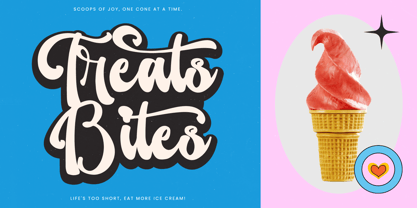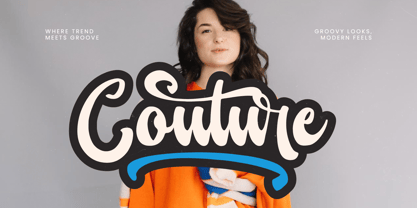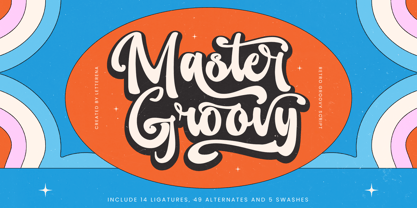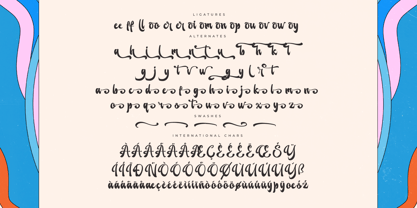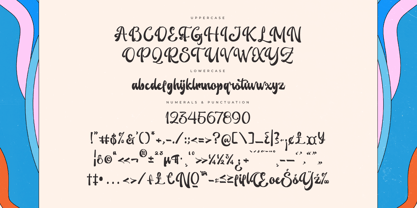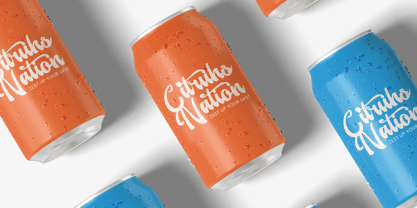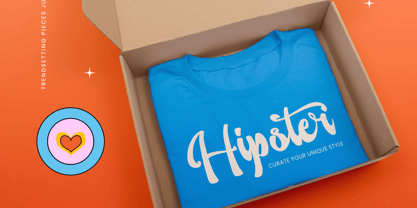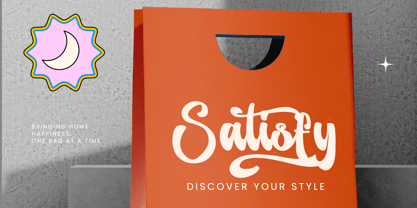
Master Groovy
von Letterena Studios
Die Schriftfamilie Master Groovy wurde von Heru Utama Putra entworfen und von Letterena Studios veröffentlicht. Master Groovy enthält 2 Stile und Familienpaketoptionen.
Master Groovy – Retro Goovy Script , from Letterena, is a Luxury Script font, suitable for any projects such as: logos, branding projects, homeware designs, product packaging, mugs, quotes, posters, shopping bags, t-shirts, book covers, name card, invitation cards, greeting cards, label, photography, watermark, special events, and all your other luxury and beautiful projects that need a Luxury Script taste.